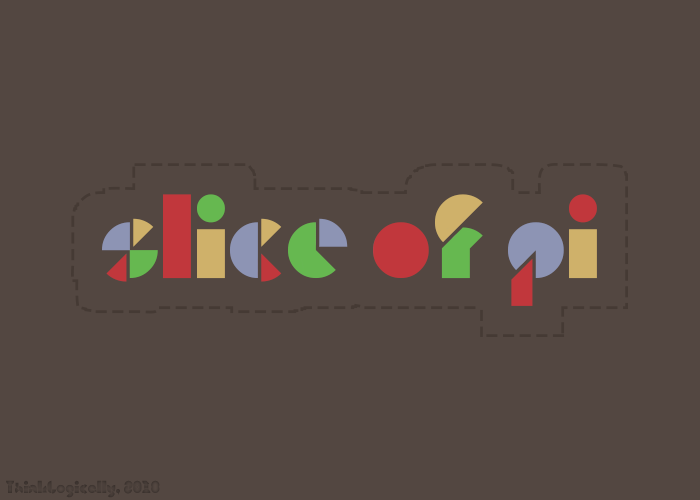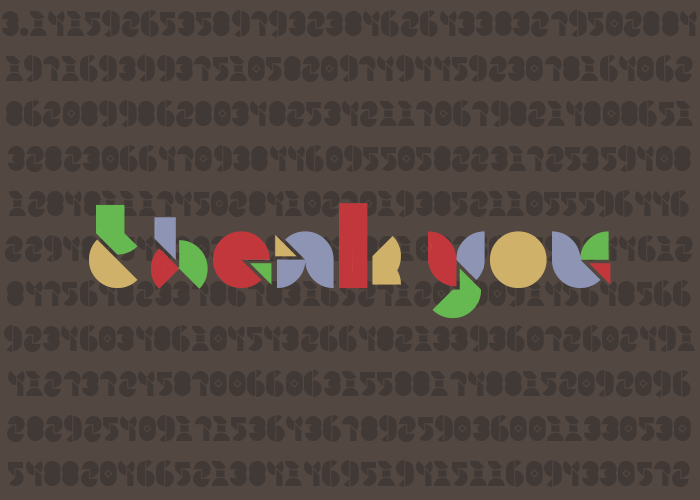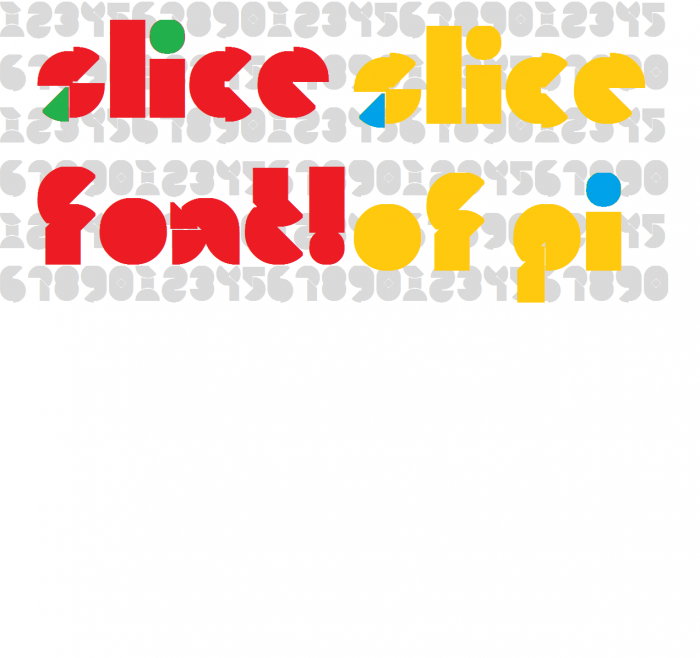
simple yet amazing
Nice work!
Looks cheesy (pun intendid)
Congratulations! FontStruct Staff have deemed your FontStruction worthy of special mention. “slice of pi” is now a Top Pick.
THERE'S A NEW BRICK!?!?!
oh, i just read the date of the comments.   But, i still like this font!
include the pi symbol (π) please
How you change the bricks like that
there's no mention of pi day at all